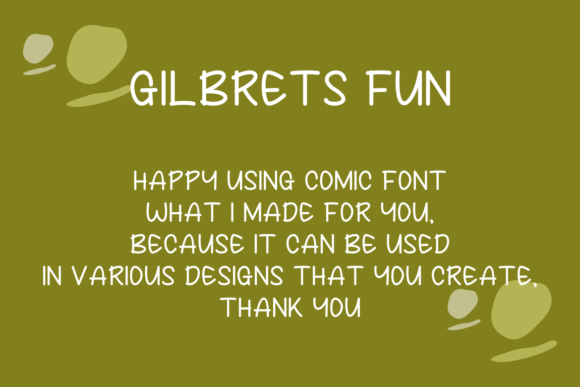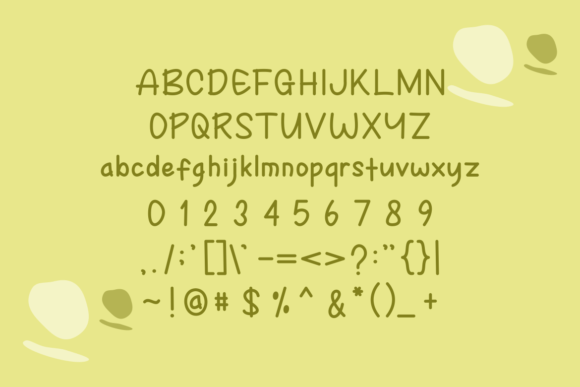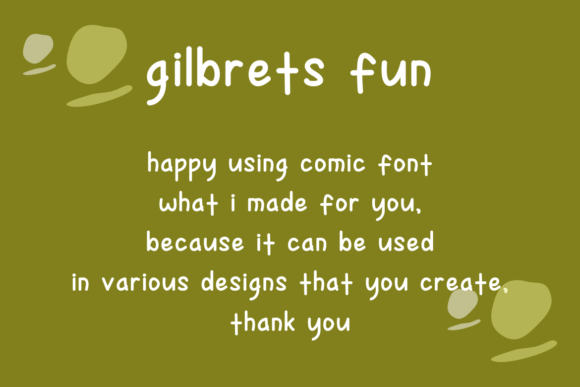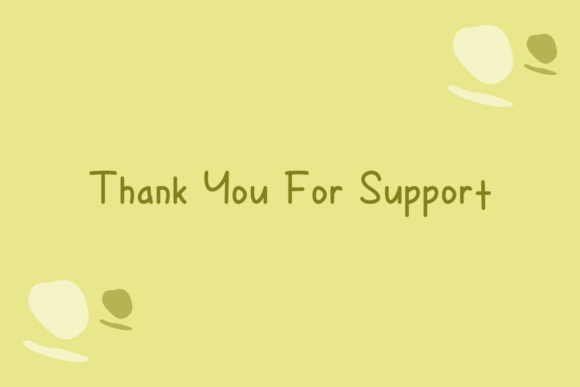
**GilbretsFun Font** – Elevate Your Designs with a Modern Twist
In the realm of typography, fonts play a pivotal role in shaping the visual identity of a brand. Among the myriad of fonts available, **GilbretsFun Font** stands out as a bold and authentic display font that has been gaining traction among designers and crafters alike. This comprehensive guide delves into the features, applications, and benefits of using **GilbretsFun Font** in your design projects.
The Essence of **GilbretsFun Font**
**GilbretsFun Font** is a modern font designed to make a statement. Its bold and authentic style makes it an ideal choice for designers looking to infuse a fresh and contemporary vibe into their work. The font’s versatility allows it to be used across a wide range of contexts, from branding and logos to t-shirt printing and esport designs.
Key Features of **GilbretsFun Font**
- Bold and Authentic Style: The font’s bold and authentic style ensures that your designs stand out from the crowd.
- Versatility: **GilbretsFun Font** can be used in various design projects, including logos, t-shirt printing, esport designs, and more.
- Modern Twist: The font’s modern design makes it perfect for brands looking to revamp their visual identity.
- Ease of Use: **GilbretsFun Font** is easy to read and understand, making it accessible to a wide audience.
Applications of **GilbretsFun Font**
**GilbretsFun Font** is a versatile font that can be used in a variety of design projects, including:
- Logo Design: Create a lasting impression with a bold and authentic logo that reflects your brand’s personality.
- T-Shirt Printing: Design eye-catching t-shirts that appeal to a wide audience.
- Esport Designs: Elevate your esport designs with a modern and bold font that resonates with gamers.
- Branding Projects: Use **GilbretsFun Font** to create a consistent visual identity across all your branding materials.
Benefits of Using **GilbretsFun Font**
Using **GilbretsFun Font** in your design projects offers several benefits, including:
- Unique Visual Identity: The font’s bold and authentic style helps create a unique visual identity for your brand.
- Improved Readability: **GilbretsFun Font** is easy to read and understand, making it accessible to a wide audience.
- Versatility: The font can be used across various design projects, making it a valuable addition to your design arsenal.
- Time-Saving: With **GilbretsFun Font**, you can create professional-looking designs in no time.
Tips for Using **GilbretsFun Font**
To get the most out of **GilbretsFun Font**, follow these tips:
- Pair it with Other Fonts: Experiment with different font combinations to create a unique visual identity.
- Use it in Headings: **GilbretsFun Font** is perfect for headings and titles, making it an excellent choice for creating visual hierarchy.
- Experiment with Colors: Try out different colors to find the perfect combination that reflects your brand’s personality.
**GilbretsFun Font** is a bold and authentic display font that offers a modern twist to your design projects. Its versatility, ease of use, and unique style make it an excellent choice for designers and crafters looking to elevate their designs. Whether you’re working on a logo, t-shirt printing, esport designs, or branding projects, **GilbretsFun Font** is sure to make a lasting impression.